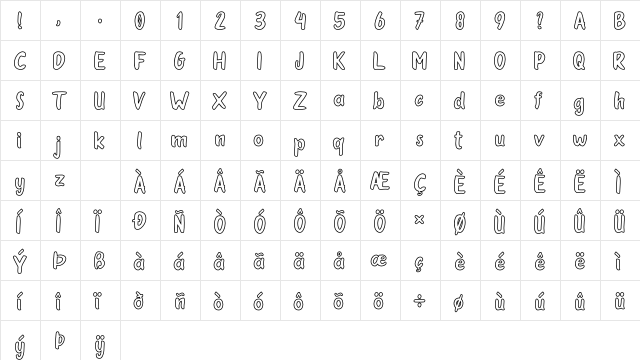
Oleander Cakes Outline Regular
Design Context for Oleander Cakes Outline Typeface
Oleander Cakes Outline brings ornamental detail and strong personality to headlines and identities, where visual impact matters more than quiet functionality.
Font Pairing: Pair with a clean neutral sans-serif for body copy to let Oleander Cakes Outline's character lead without overwhelming the composition.
Pro Tip: Use Oleander Cakes Outline exclusively at display sizes — it was designed to be seen, not read at length. Let a neutral companion handle body copy.